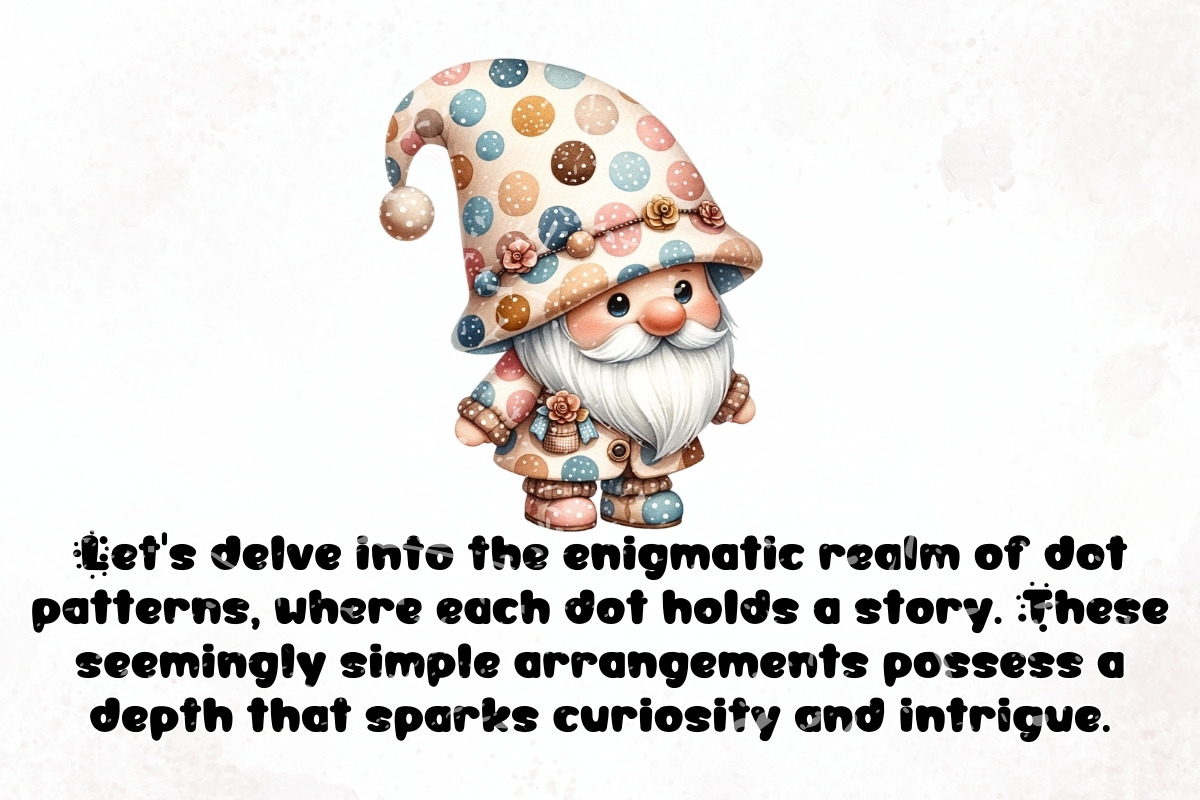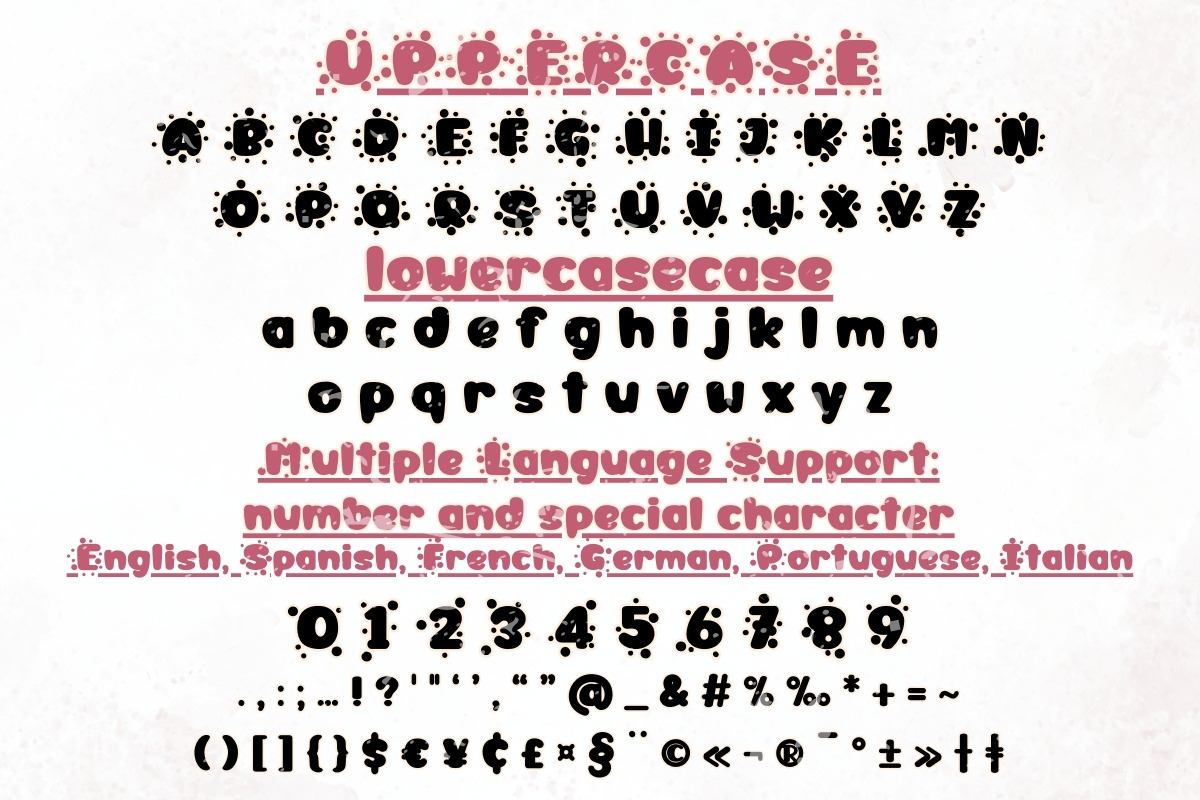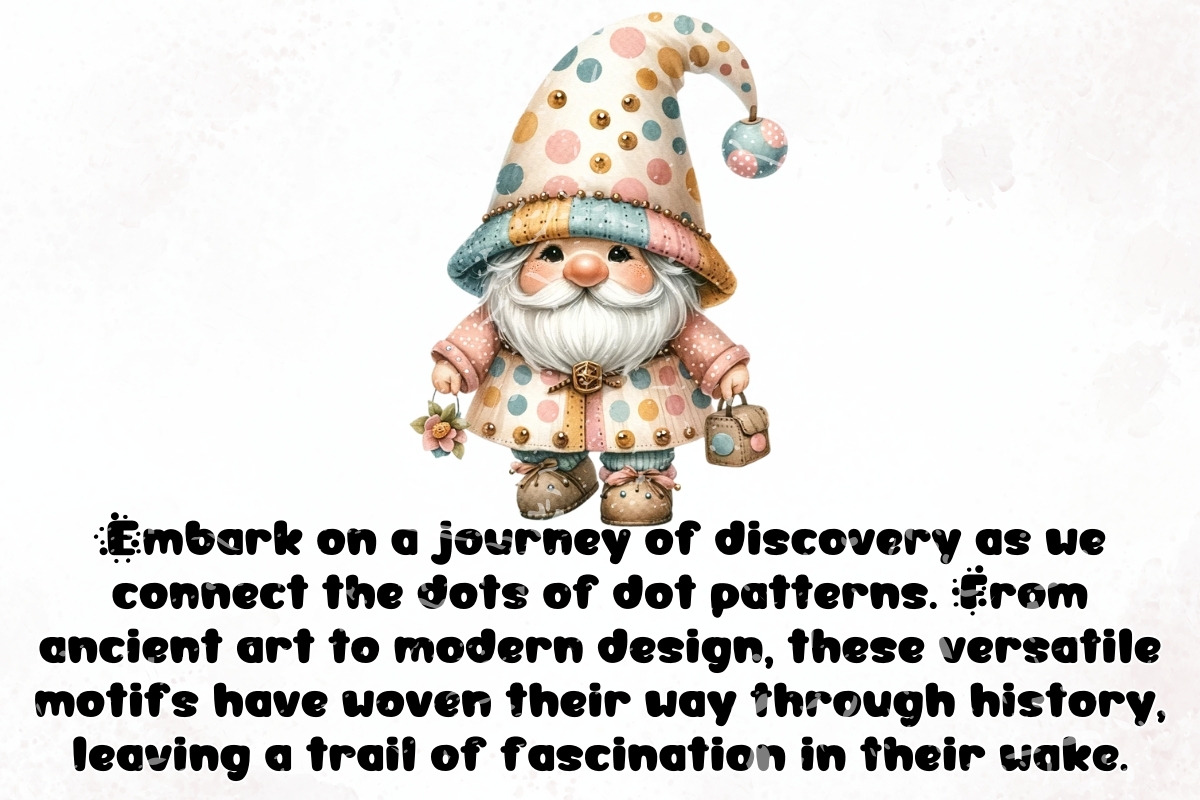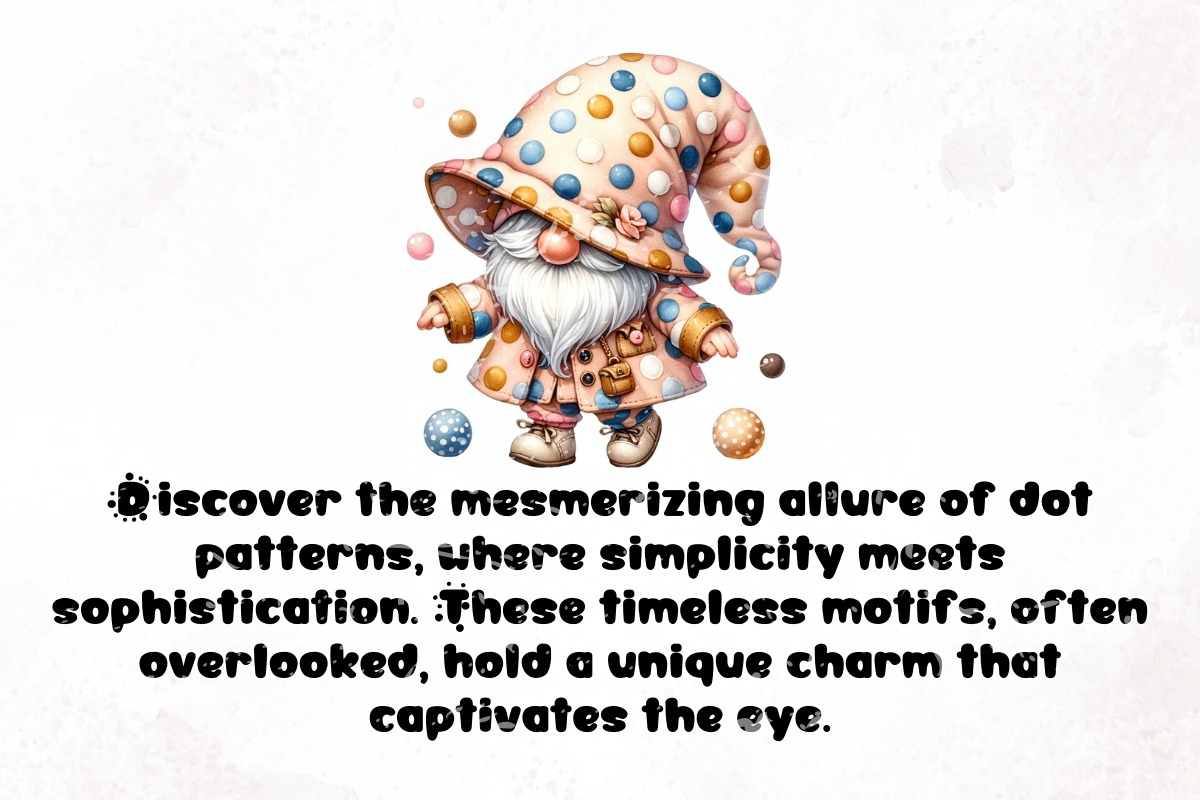
UPPER DOT - Handwriting
"Introducing UPPER DOT: A Delightfully Charming Handwritten Font" UPPER DOT is more than just a font; it's a whimsical journey into the world of handwritten elegance. With its graceful curves and playful strokes, UPPER DOT adds a touch of whimsy and charm to any project. Whether you're creating invitations, greeting cards, or branding materials, this font will elevate your design with its unique personality. Let UPPER DOT be your companion in crafting beautiful, cute, and captivating visuals that leave a lasting impression.